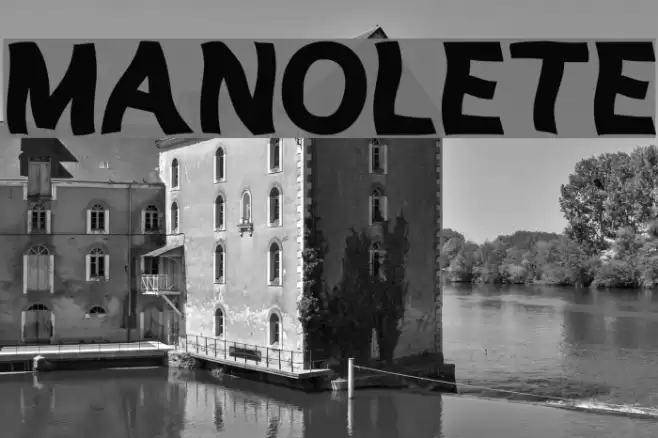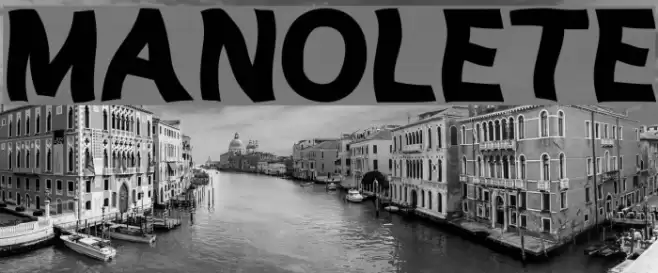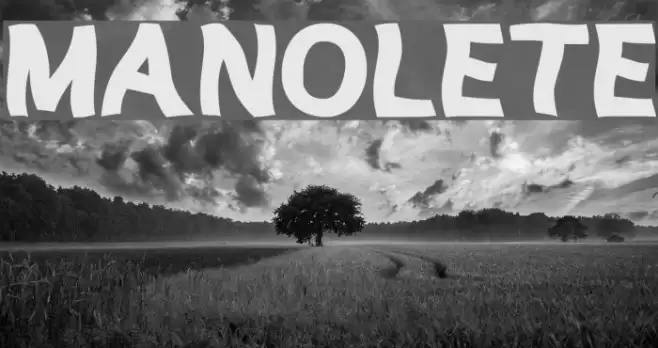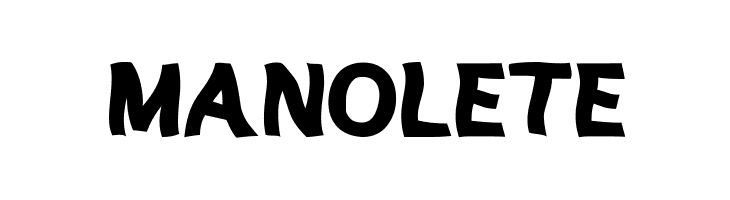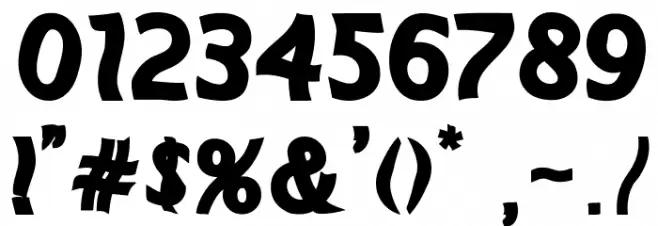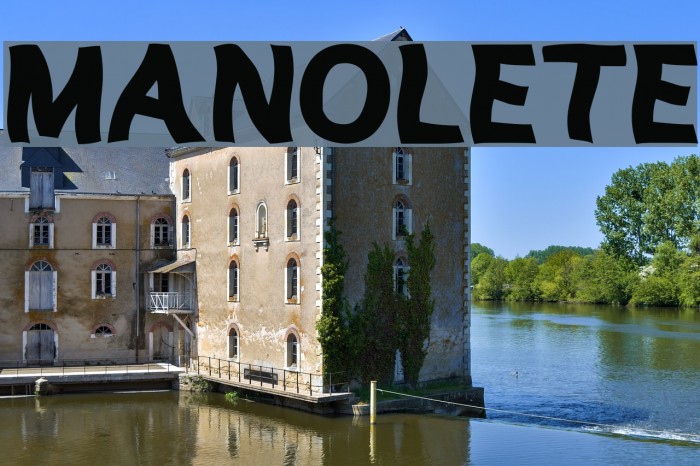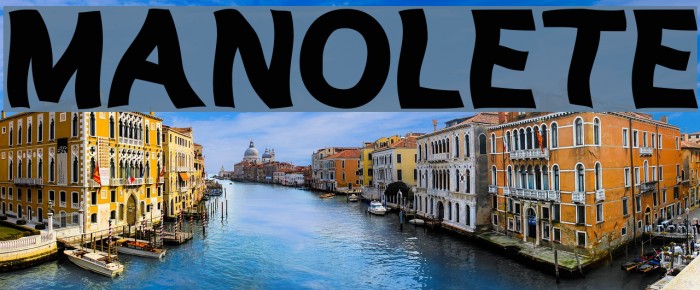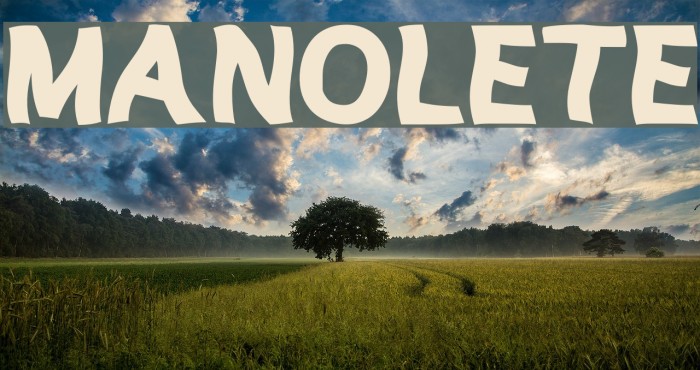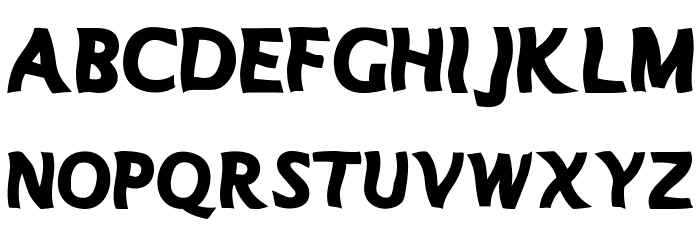
MANOLETE Font
MANOLETE Description
This font features a bold and dynamic style with a playful, hand-drawn appearance. The characters are slightly irregular, giving it a lively and energetic feel. The strokes are thick and robust, contributing to a strong visual impact. The uppercase and lowercase letters maintain a consistent weight, while the numerals and special characters follow the same bold aesthetic. The overall look is informal and artistic, making it suitable for creative and expressive design projects.
A bold, hand-drawn font with a playful and dynamic style from Distorted Eroded fonts.
- Proposed Projects: Ideal for posters, branding, children's books, and creative advertising campaigns.
- Overall Style: Playful, Artistic